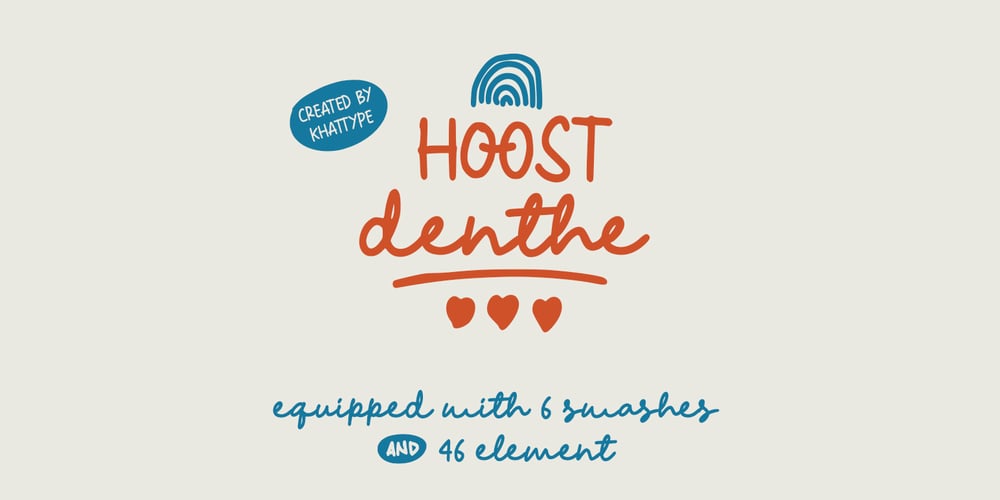
HOOST denthe Font Family was designed by Mohamad Shadiq and published by Khat Type. HOOST denthe contains 2 styles and family package options. A fun monoline handwritten font with cheerful themes. This font can be applied to several designs such as logos, brands, packaging, quotes, children’s posters, t-shirts, children’s books, and other special designs. Its features include uppercase, lowercase, numbers, punctuation & symbols, multilingual support, PUA encoded (fully accessible without additional design software) and added with many cute elements to complete this font.